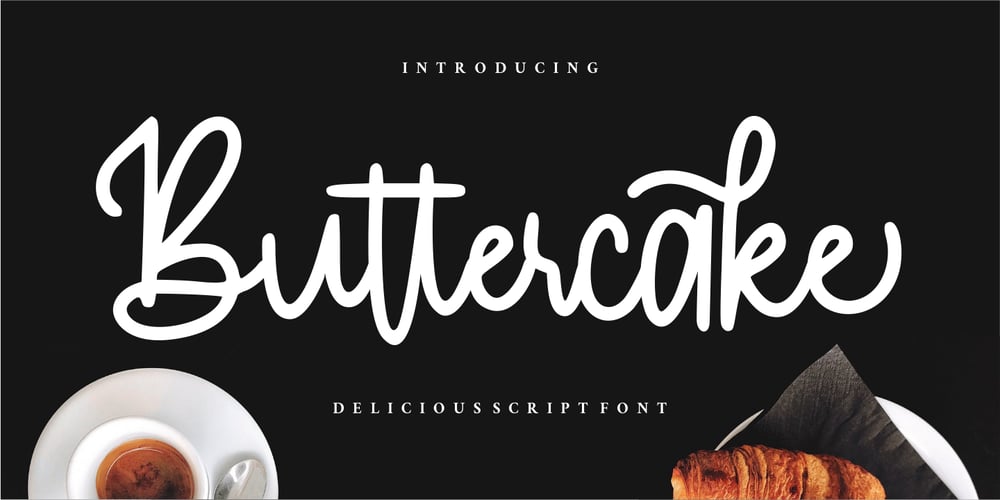
Buttercake Font Family was designed by Good Java and published by Good Java Studio. Buttercake contains 1 styles and family package options. Buttercake is a from bold and fun script and includes many different swashes to help you make great work. It’s versatile and great for many purposes such as poster design, logos, branding, labels, quotes, headline profiles, banners, t-shirt design, packaging, magazines, brochure, and many more. Features: – Simple installation – Support for MAC and PC – PUA encoded – Stylistic Alternates – Multilingual support (for 16 languages): Afrikaans, Albanian, Catalan, Danish, Dutch, English, Estonian, Finnish, French, Icelandic, Italian, Norwegian, Portugese, Spanisch, Swedish, Zulu. Kind regards Good Java Studio